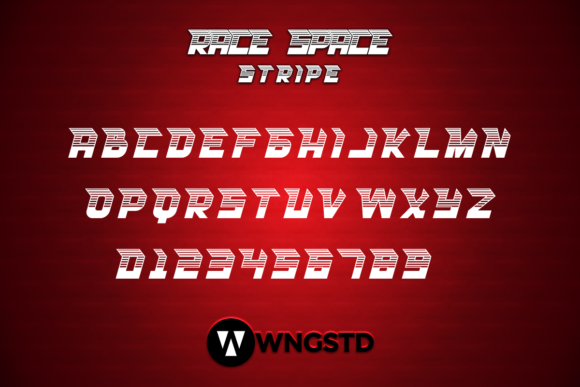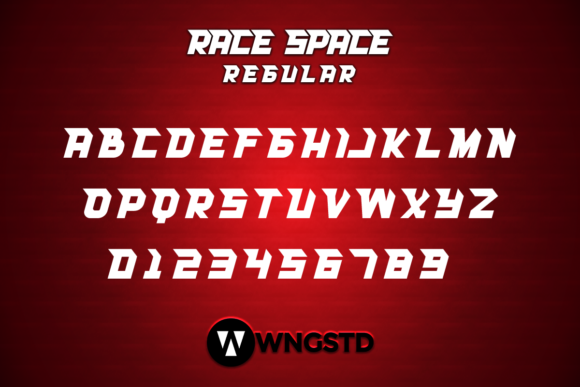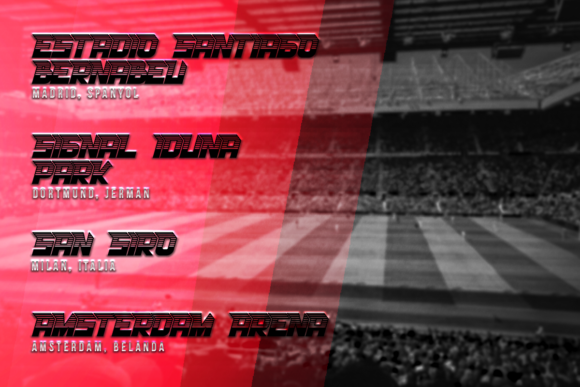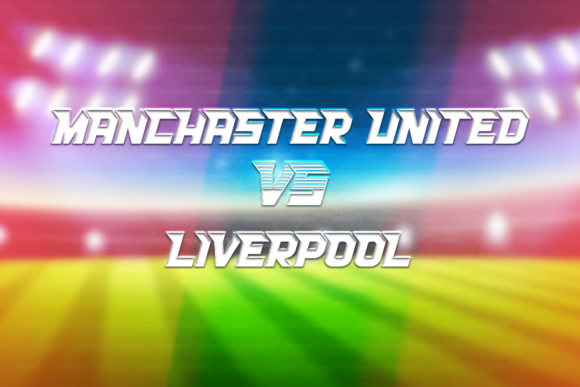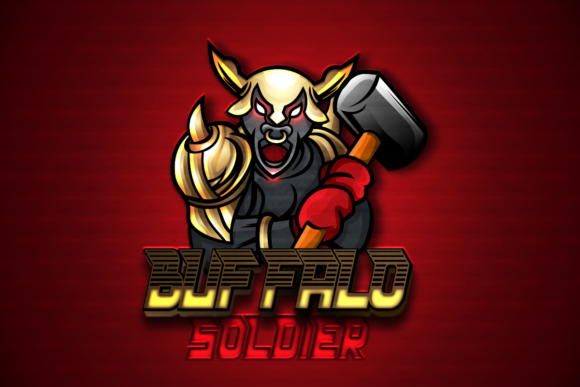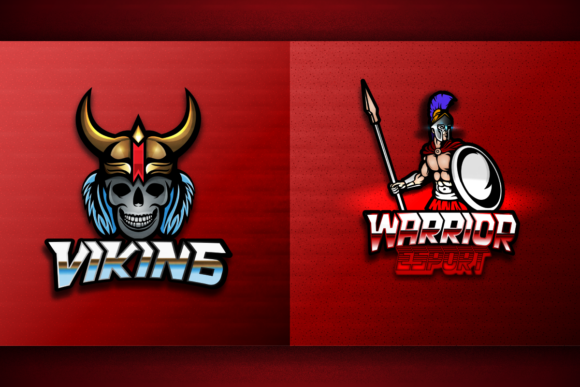
Introduction to Race Space Font
Have you ever been working on a creative project, and you just can’t seem to find the right font to bring it all together? The perfect font can make all the difference, elevating your design from ordinary to extraordinary. That’s where the Race Space Font comes in – a bold and eye-catching display font that’s sure to make your ideas shine.
With its high-quality design and transparent background, the Race Space Font is the ultimate design resource for any project. Whether you’re working on a marketing campaign, a graphic novel, or a simple poster, this font is sure to make a statement. And the best part? It’s available for free download, making it an accessible and valuable addition to any designer’s toolkit.
Key Features of Race Space Font
- High-quality design resource ideal for creative projects, including graphic design, digital art, and typography.
- Designed to be highly legible at various sizes, making it suitable for use in titles, headings, and body text.
- Features a unique blend of futuristic and space-inspired elements, adding a touch of otherworldliness to any design project.
- Includes a wide range of characters, including Latin, Cyrillic, and Greek alphabets, as well as punctuation and symbols.
- Resolution-independent, ensuring that the font remains crisp and clear at high resolutions (up to 300 DPI).
Honest Review: Race Space Font
I recently stumbled upon the Race Space Font, and I must say it’s a great addition to any designer’s toolkit. As a creative project, this font offers a unique blend of futuristic and minimalist styles that can elevate any design.
One of the standout features of the Race Space Font is its high quality. The font is crisp, clear, and well-designed, making it perfect for a variety of applications, from digital interfaces to print materials. I particularly appreciate the transparent background option, which allows for seamless integration with any design.
Here are some of the things that work well with the Race Space Font:
- Unique blend of futuristic and minimalist styles
- High quality and crisp design
- Limited character set (may not be suitable for extensive typing)
- Not as versatile as some other fonts in the market
Overall, I’m impressed with the Race Space Font. It’s a solid design resource that can add a touch of futurism to any creative project. While it may have some limitations, its unique style and high quality make it a worthwhile addition to any designer’s library.
How to Use Race Space Font
Integrating Race Space Font in PowerPoint/Word
When using Race Space Font in PowerPoint and Word, you can easily incorporate the font into your presentations and documents. Select the font from the font library and use it to create visually appealing headings and text. The font’s clean and modern design makes it perfect for a range of creative projects, from business reports to marketing materials.
Tips for Getting the Most Out of Race Space Font
To get the most out of the Race Space Font, experiment with different font sizes, colors, and styles to find the perfect combination for your design. You can also use the font in conjunction with other design elements, such as images and graphics, to create a visually appealing design.
Common Use Cases for Race Space Font
The Race Space Font is perfect for a range of creative projects, from logos and branding to marketing materials and presentations. Its high quality design and transparent background make it a versatile and valuable design resource.
Alternatives to Race Space Font
Abril Fatface is a high-quality, elegant font suitable for creative projects that require a touch of sophistication. It features a transparent background and is ideal for use in titles, headings, and other design elements. When to use: formal invitations, luxury branding, and high-end publications. Abril Fatface compares to Race Space Font in its elegant and refined look, but it has a more classic and timeless feel.
Yes, the Race Space Font is designed to be highly legible and works well with transparent backgrounds. Its high-quality design ensures that the text remains clear and readable even when placed on top of other design elements or images.
Q: Is the Race Space Font suitable for use in digital and print design projects?
Yes, the Race Space Font is a versatile design resource that can be used in both digital and print design projects. Its high-quality design ensures that it looks great in a variety of contexts, from web design to brochures and business cards.